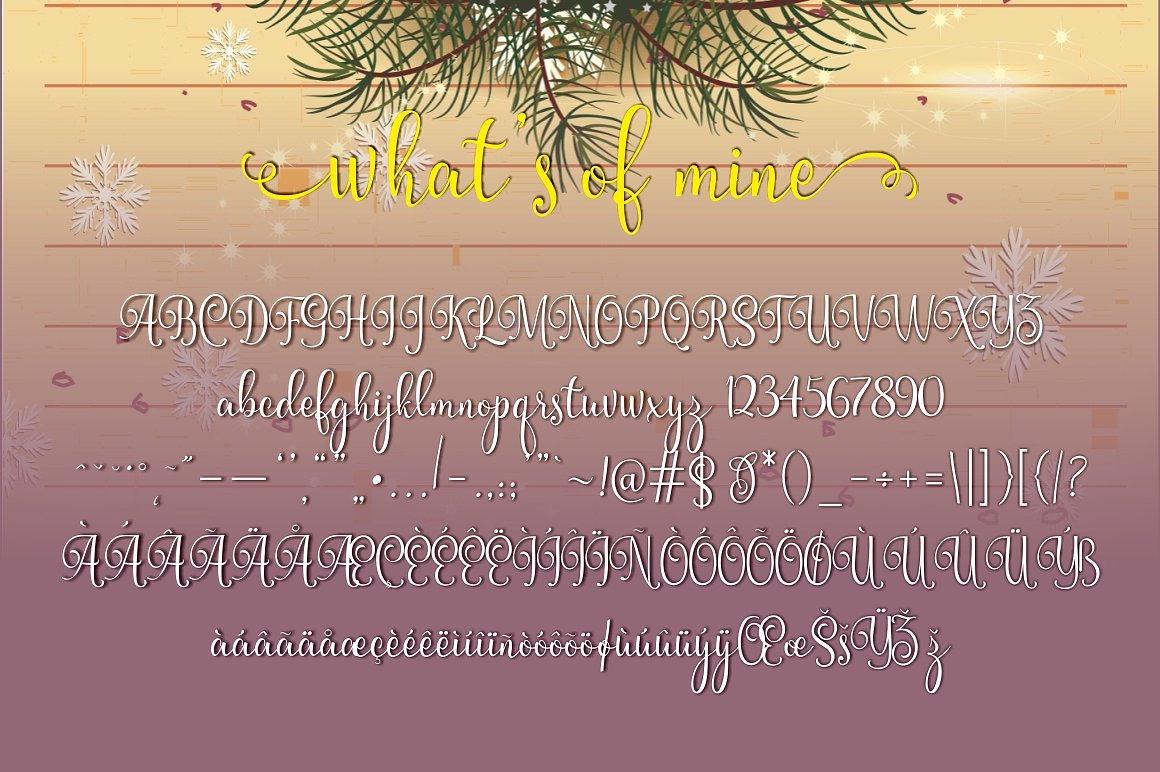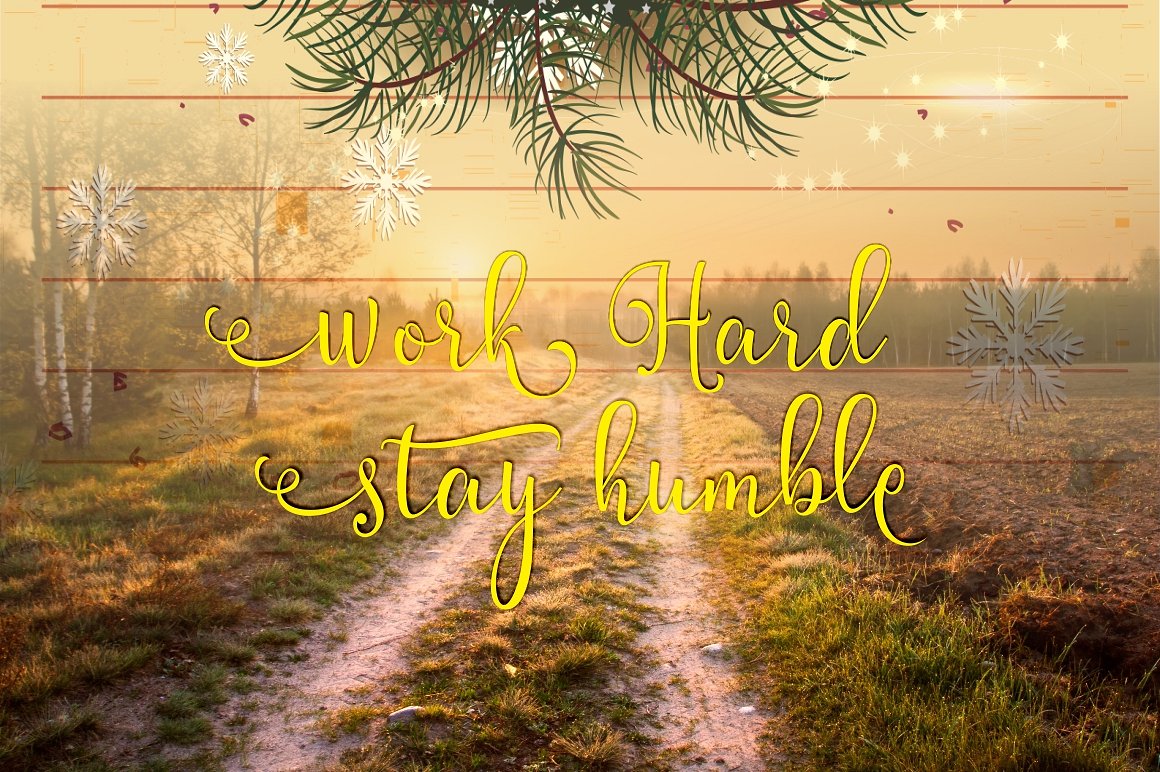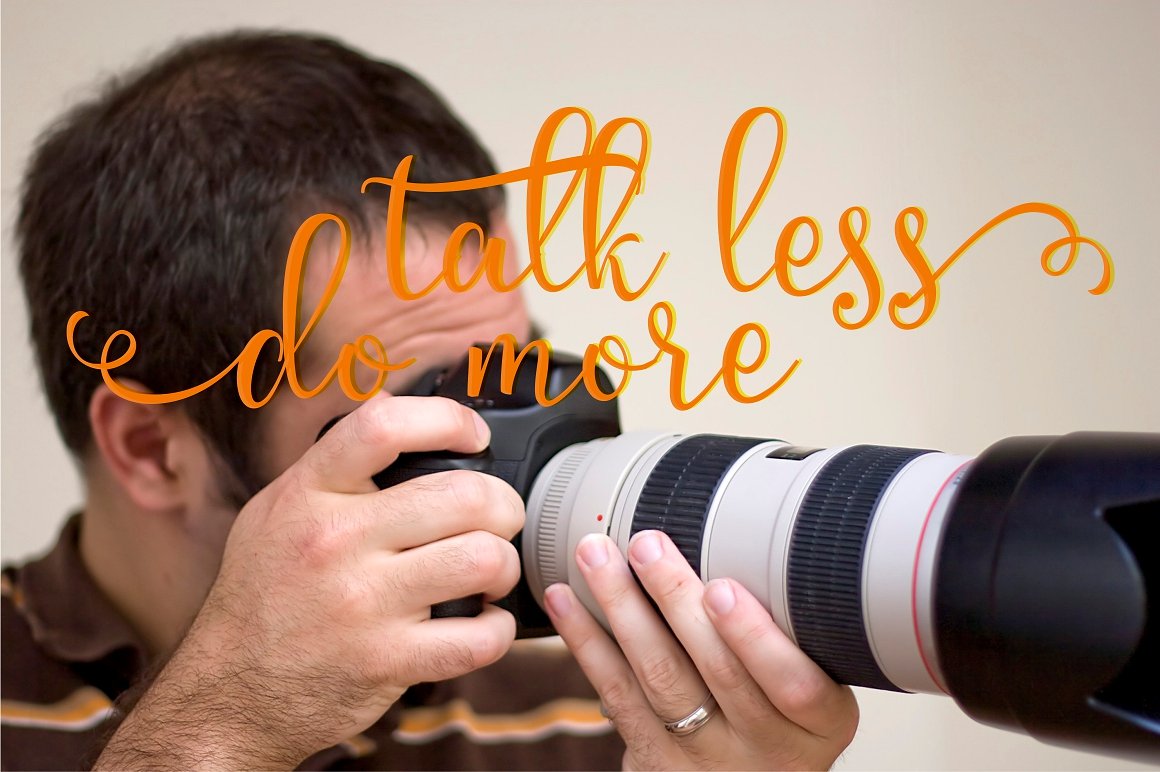
Mischa Font
About Mischa Font
Mischa is a stunning modern calligraphy font, with a unique blend of clean yet classic style. This font is completely suited to a wide range of designs that need a special and delicate touch.